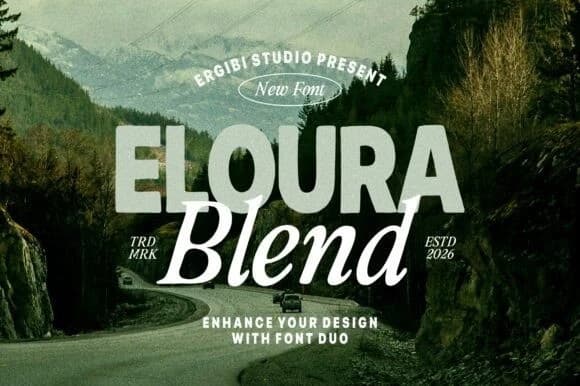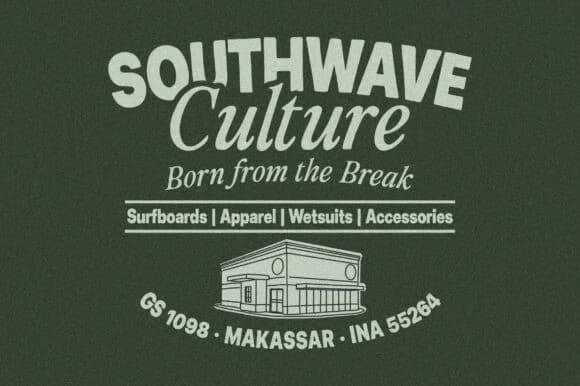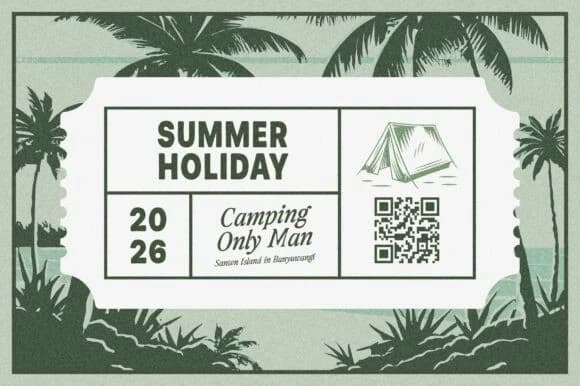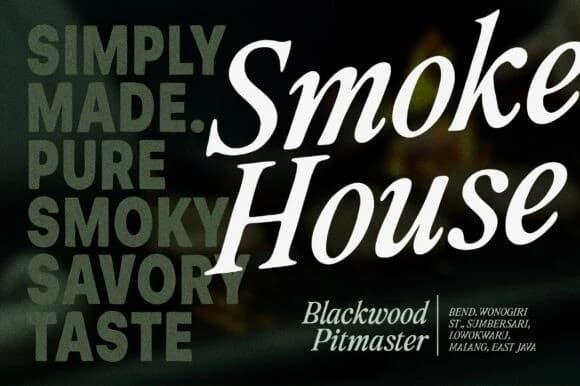
Eloura Blend Font
Eloura Blend Font is a modern font duo that brings together an elegant serif and a clean, simple sans serif. The pairing is designed to feel natural and easy to read, while still carrying a strong and distinctive character.